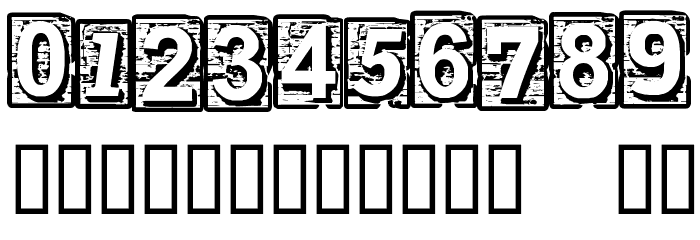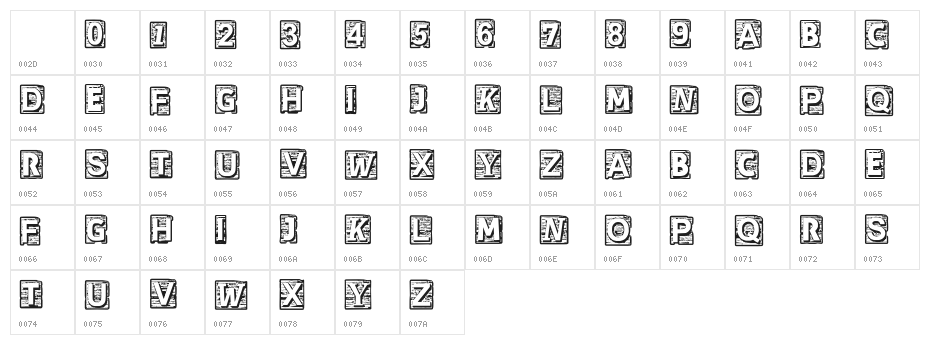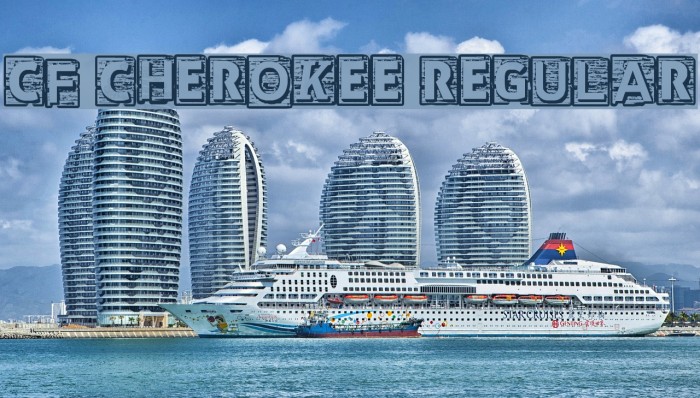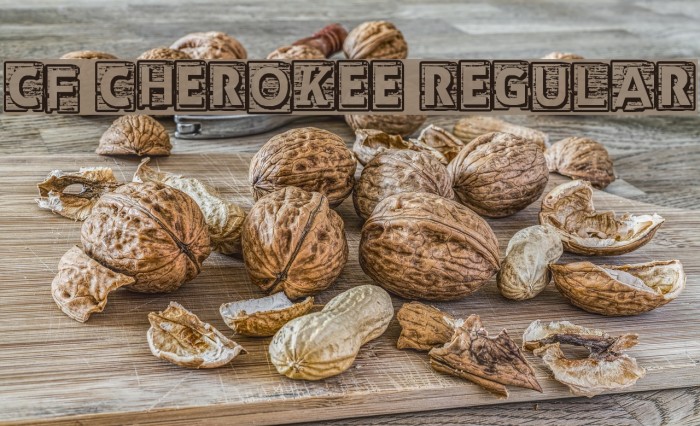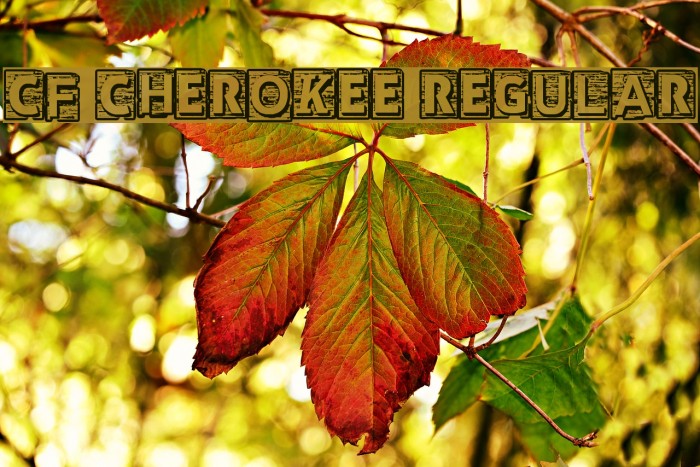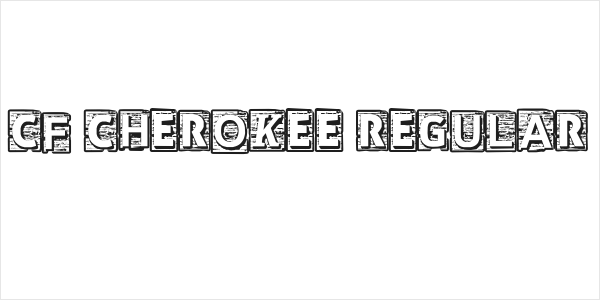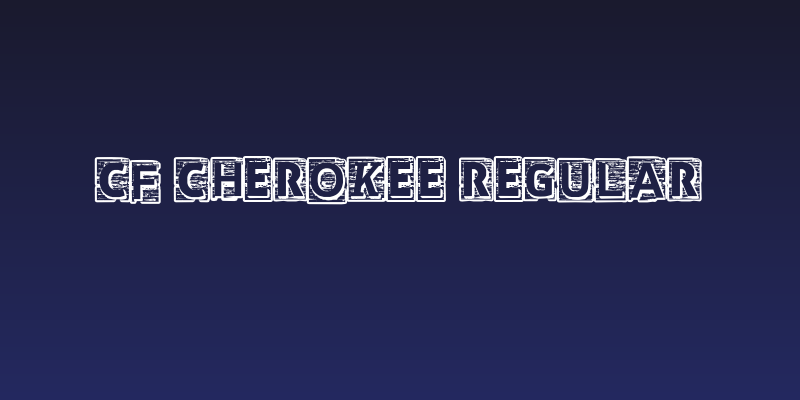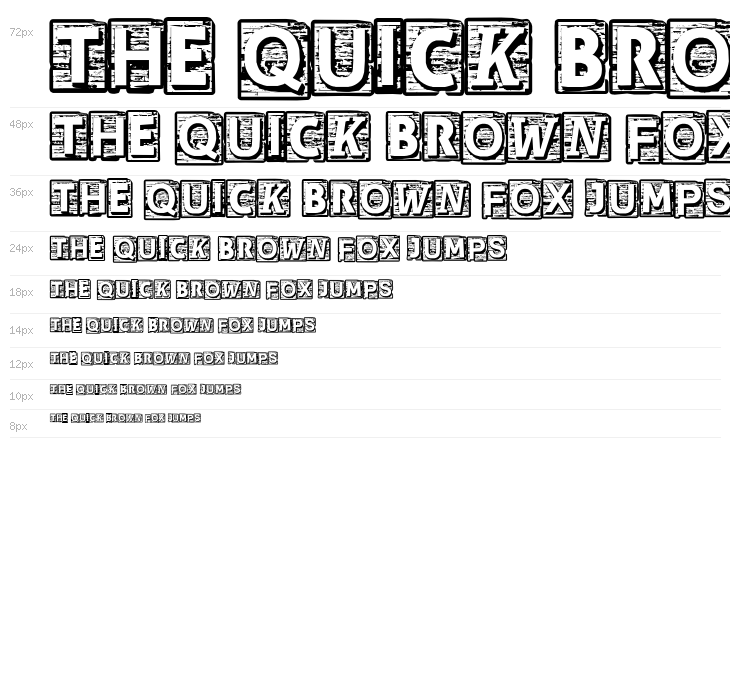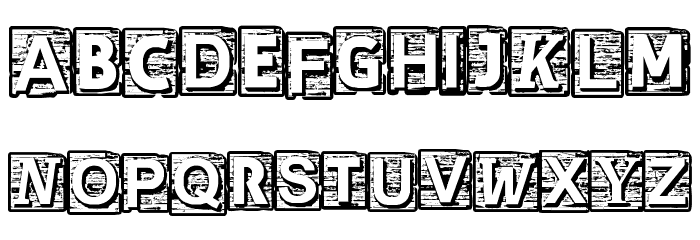
CF Cherokee Regular Font
CF Cherokee Regular Description
This font features a bold, distressed style with a textured appearance that gives it a rugged, vintage feel. Each character is enclosed in a rectangular outline, enhancing its boldness and making it stand out. The letters and numbers have a consistent width, contributing to a uniform look across the typeface. The distressed texture adds a layer of complexity and visual interest, making it suitable for designs that require a rustic or worn aesthetic. The font's boldness and unique style make it ideal for attention-grabbing headlines or display purposes.
| Proposed Projects | Ideal for vintage-themed posters, rustic branding, or eye-catching headlines. |